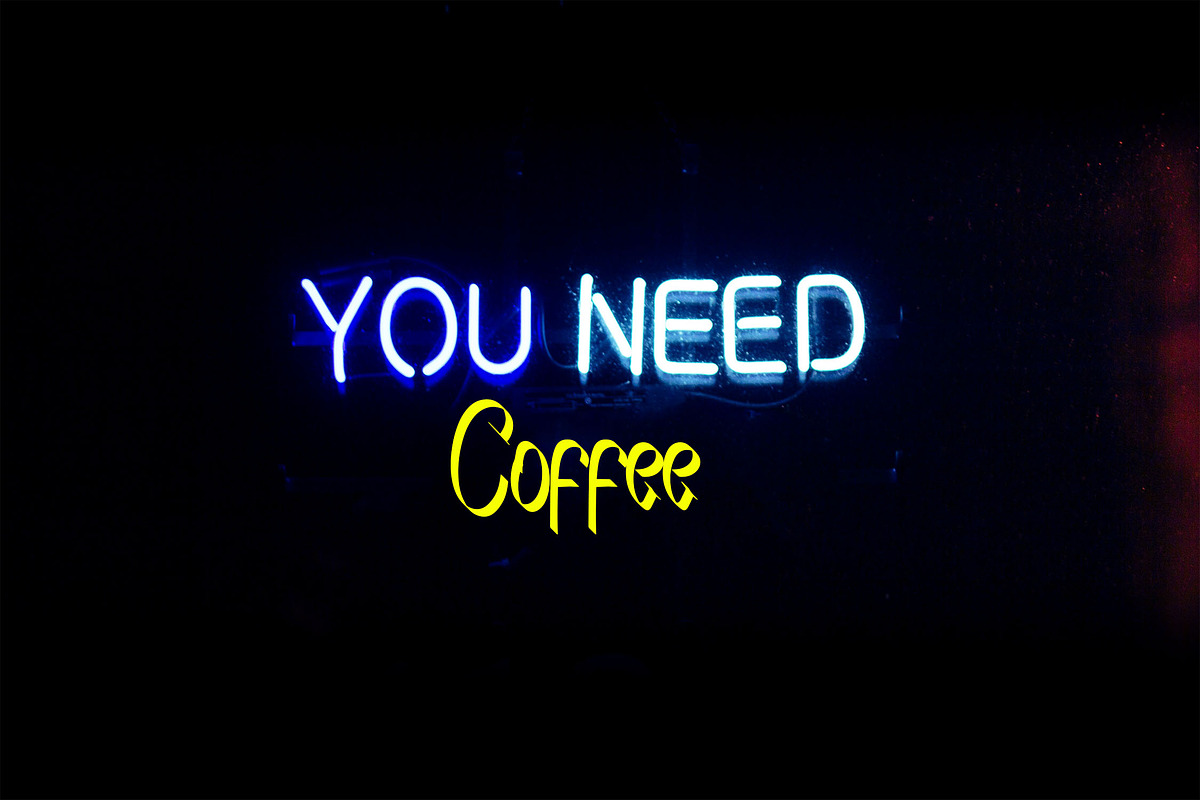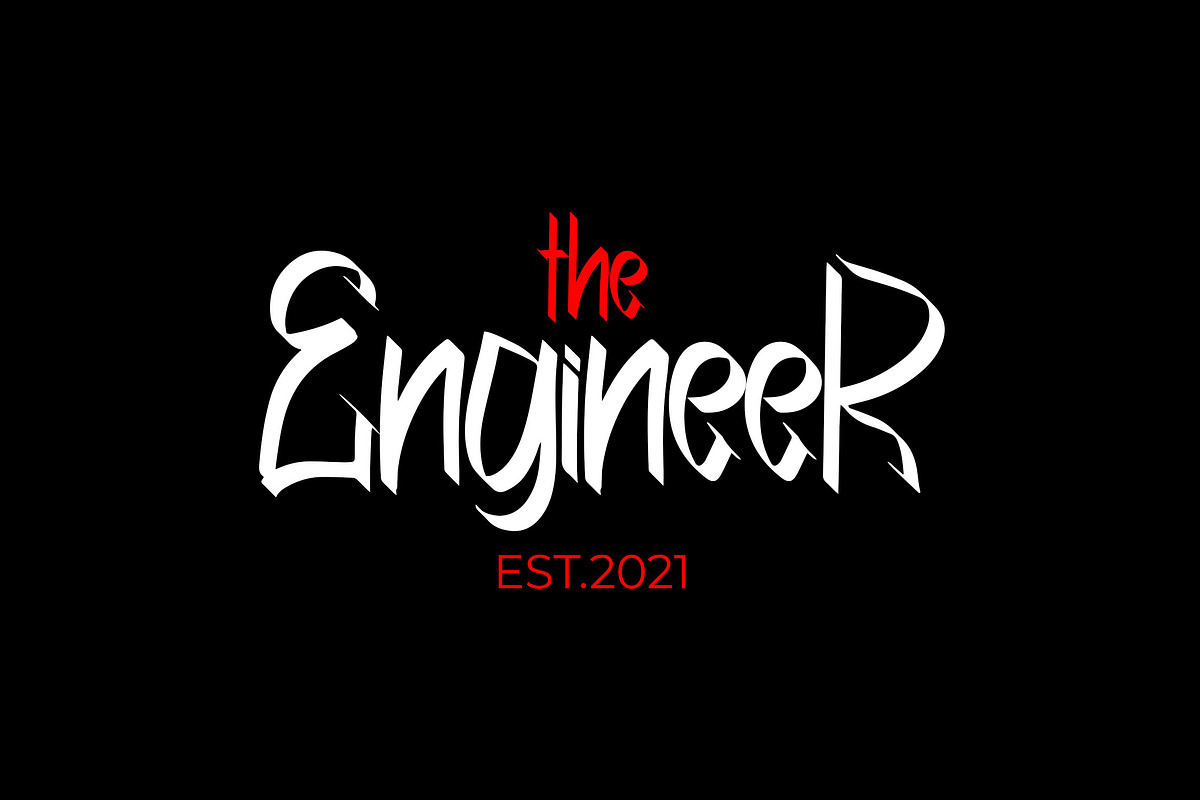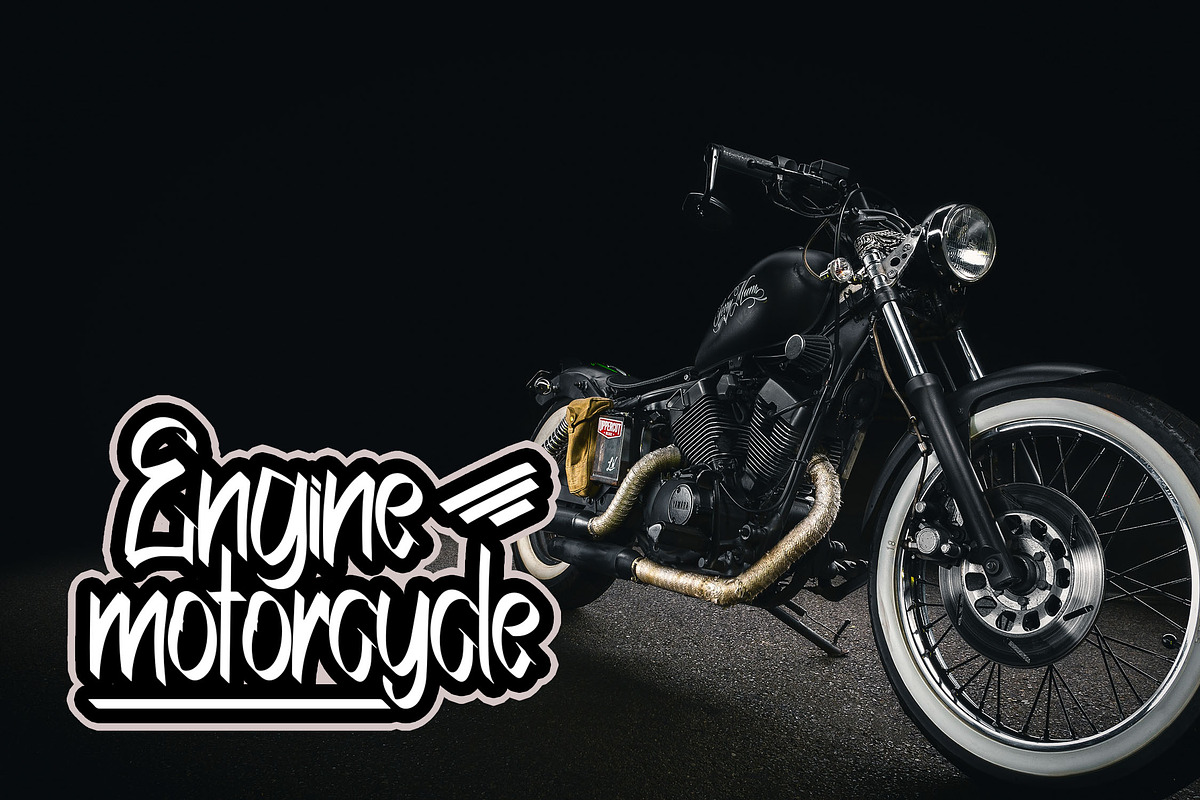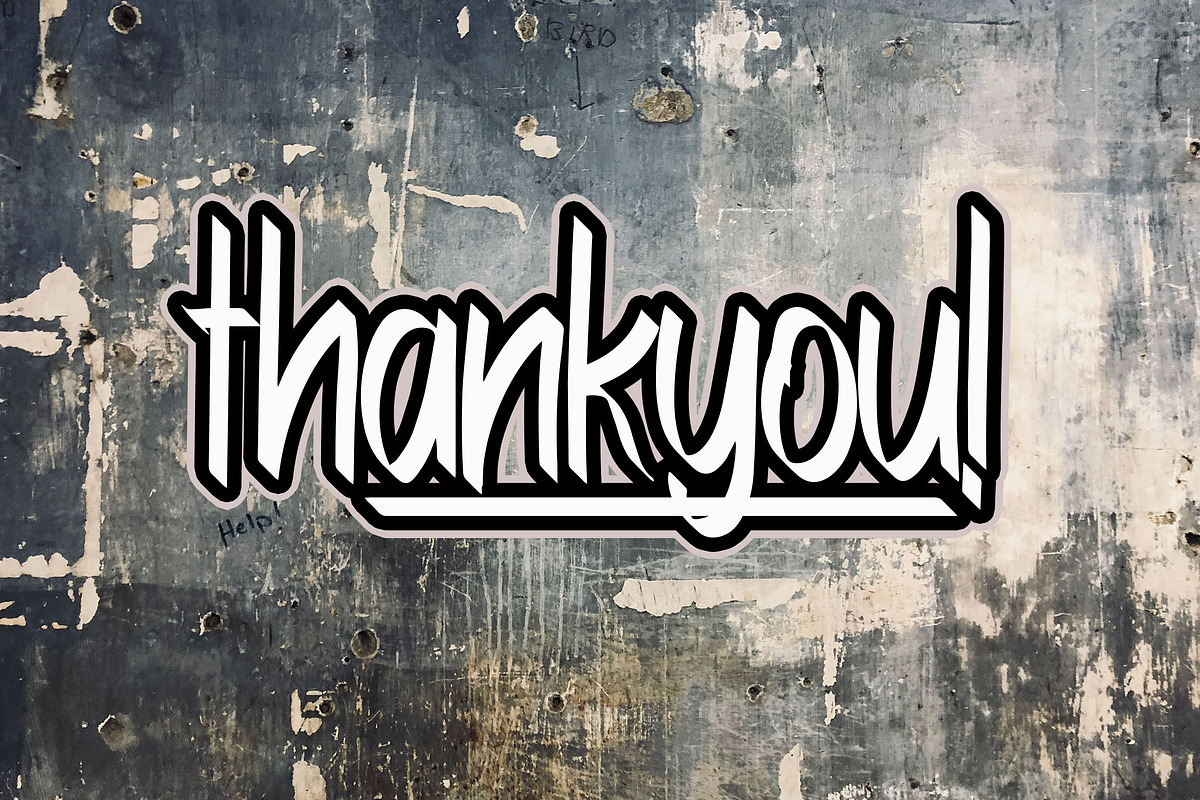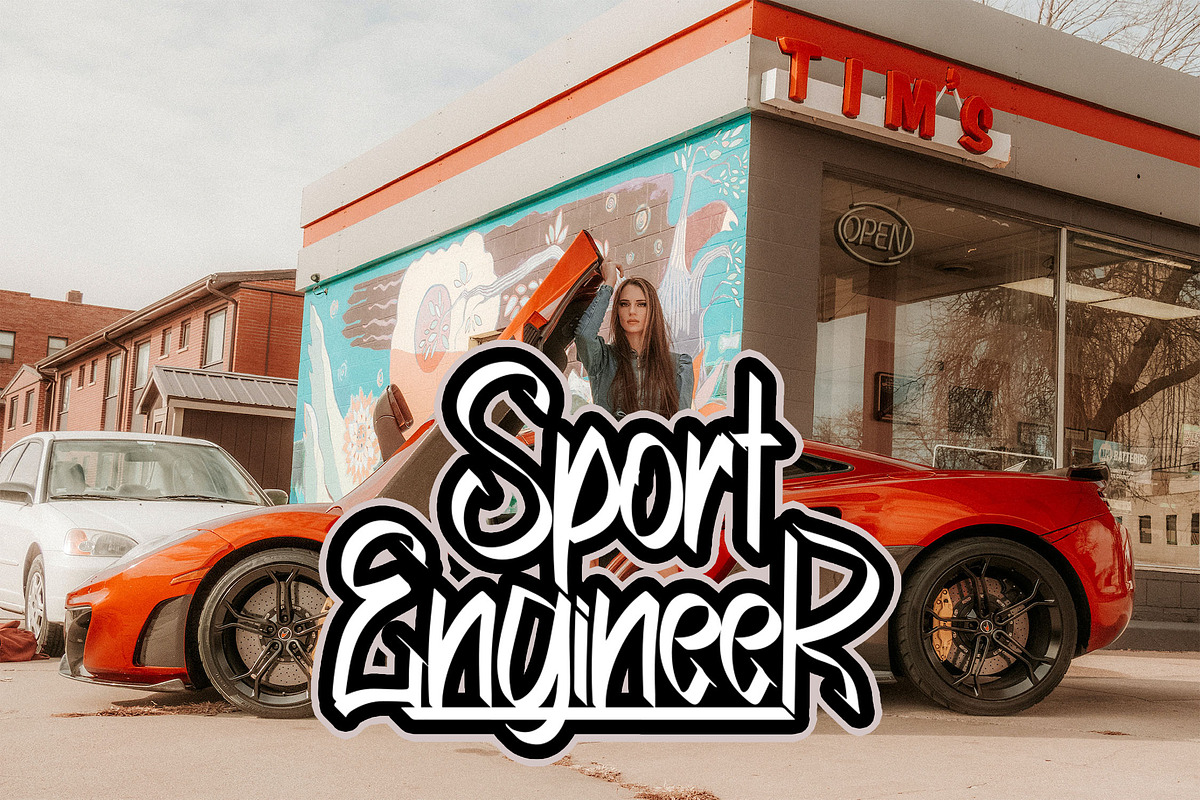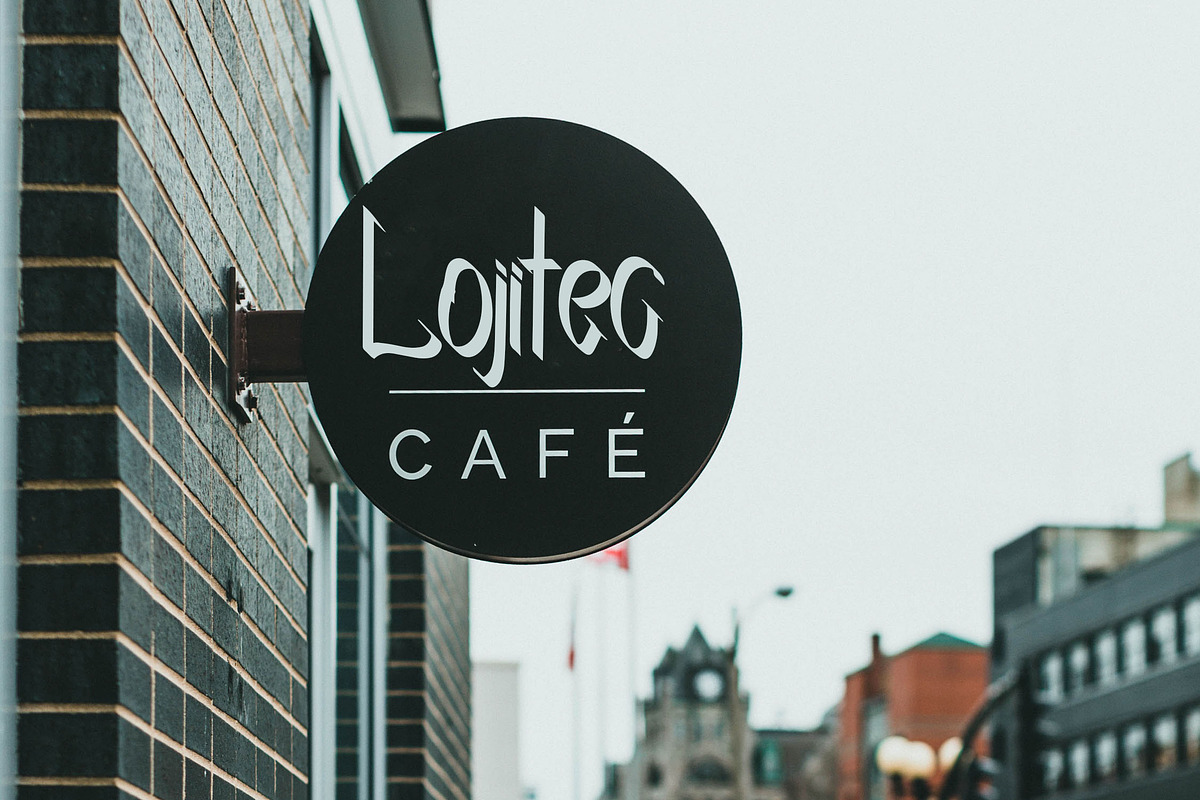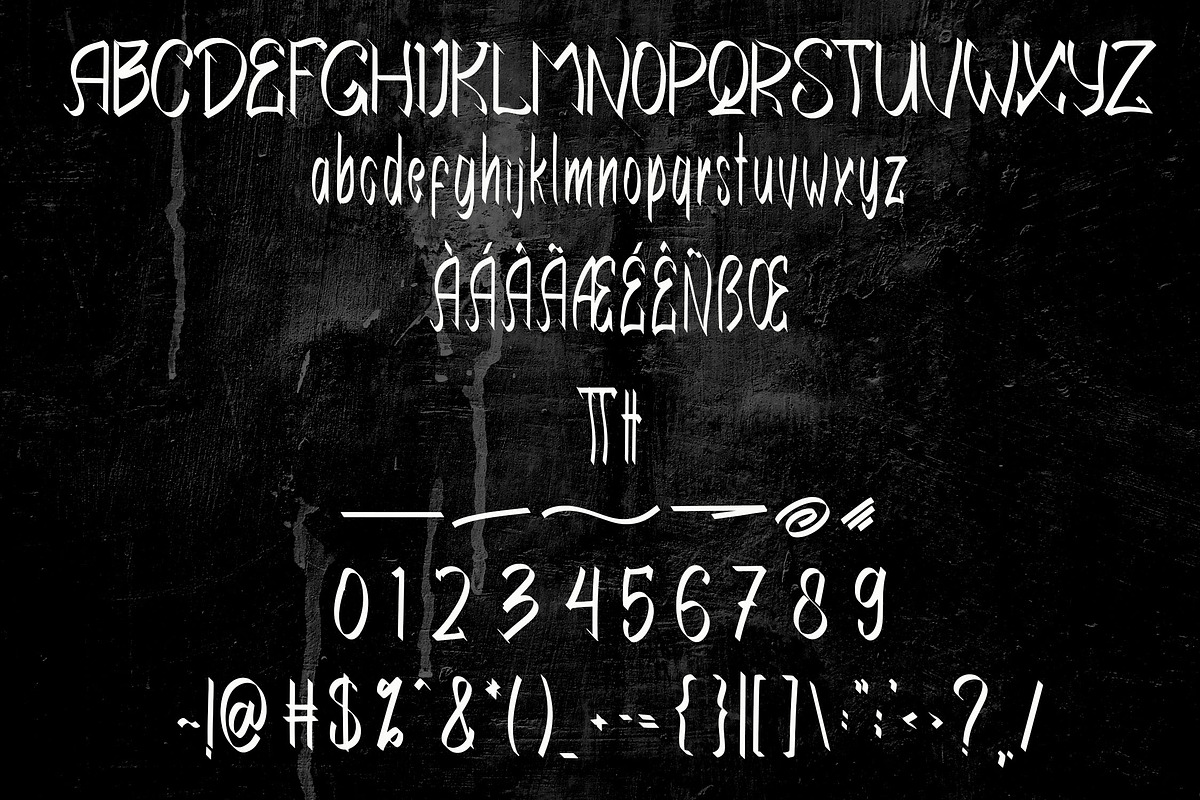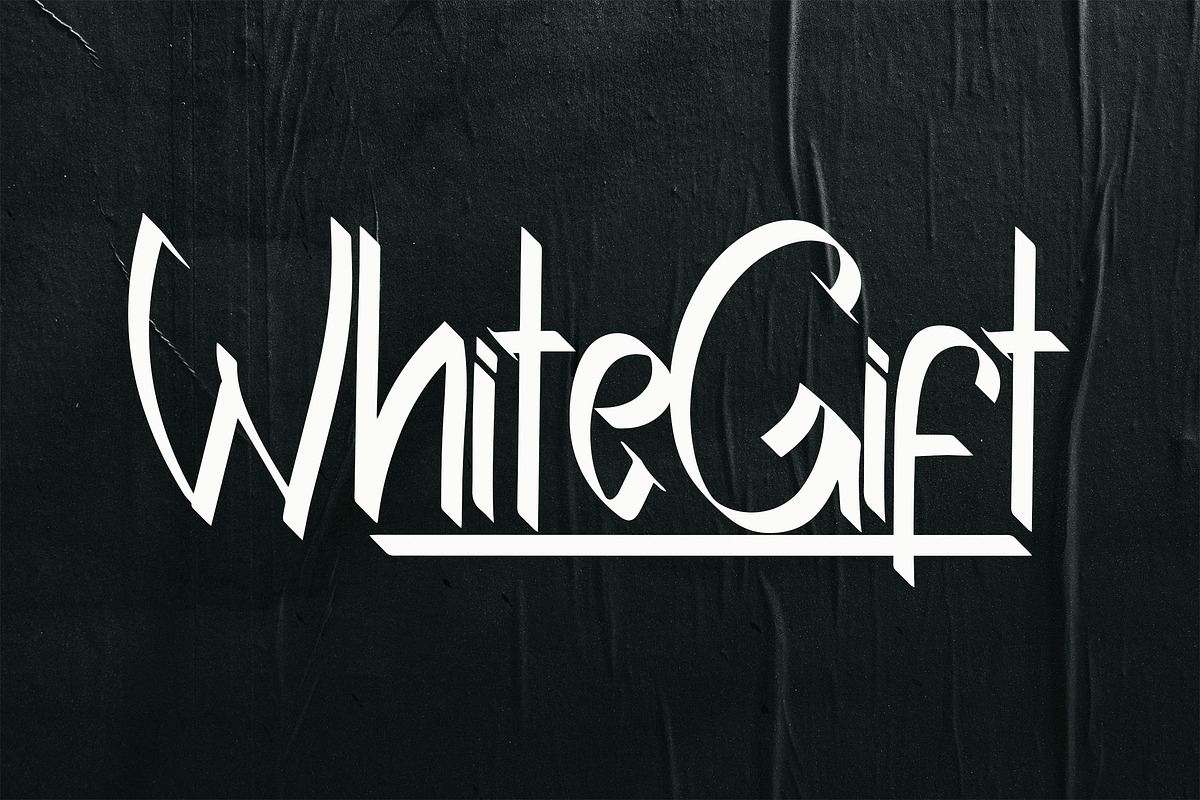
White Gift Brush Font
White Gift is a bold and sharp handbrush-style font designed with unique character shapes to enhance the visual appeal of any design. Its dynamic and striking strokes make it ideal for logos, branding, posters, and creative projects.